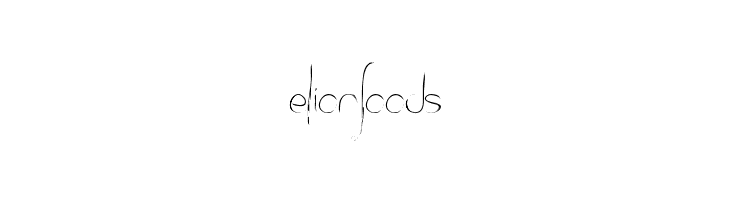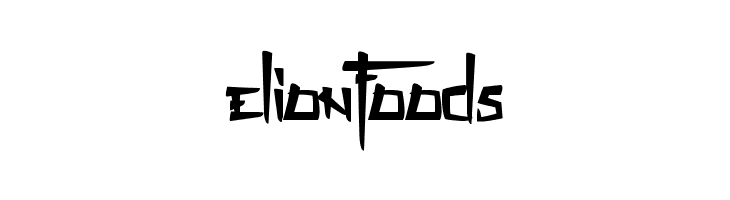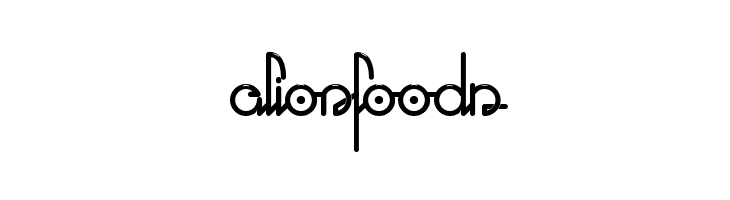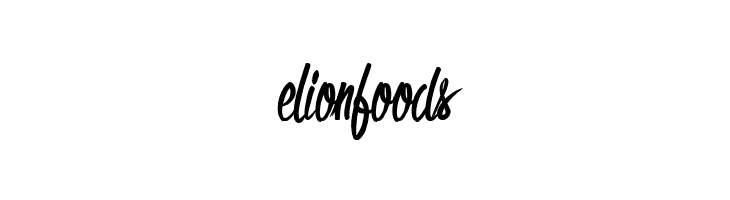
( Fonts by www.kimberlygeswein.com - Kimberly Geswein )
A whimsical and curly font with playful swirls and embellishments.
( Fonts by Maelle.K - Thomas Boucherie )
An ornate and artistic script font with intricate swirls and flourishes.
( Fonts by Maelle.K - Thomas Boucherie )
An ornate script font with elaborate swirls and flourishes, perfect for elegant designs.
( Fonts by Maelle.K - Thomas Boucherie )
A bold, graffiti-inspired font with angular, distressed letters.
( Fonts by Maelle.K - Thomas Boucherie )
An elegant script font with flowing, interconnected letters and a sophisticated style.
( Fonts by Maelle.K - Thomas Boucherie )
An elegant, whimsical script font with flowing, interconnected strokes.
( Fonts by Maelle.K - Thomas Boucherie )
An intricate and decorative font with elegant loops and curves.
( Fonts by Maelle.K - Thomas Boucherie )
A dynamic and elegant script font with flowing, cursive letterforms.
( Fonts by Maelle.K - Thomas Boucherie )
An ornate and decorative script font with elaborate swirls and flourishes.